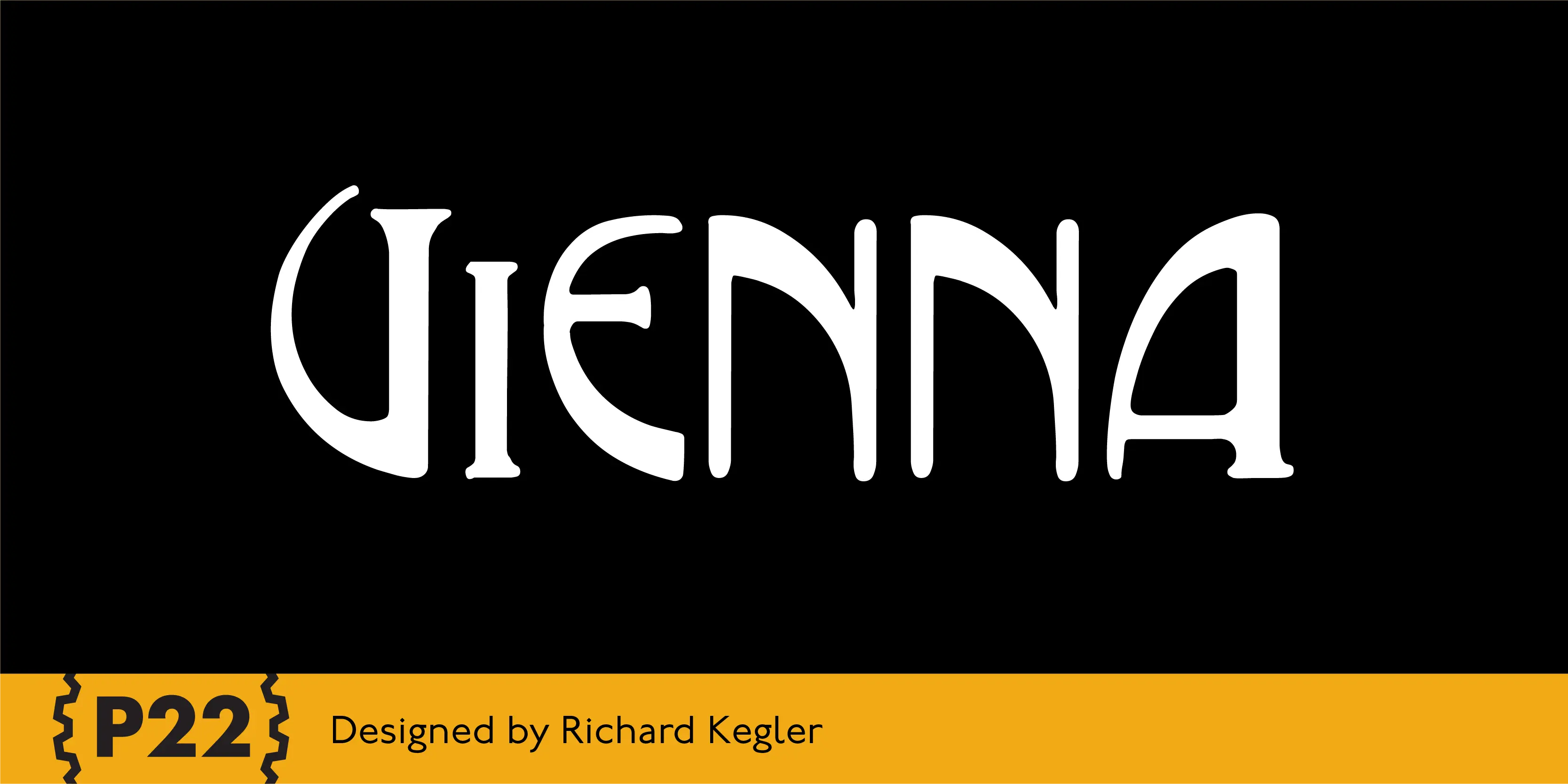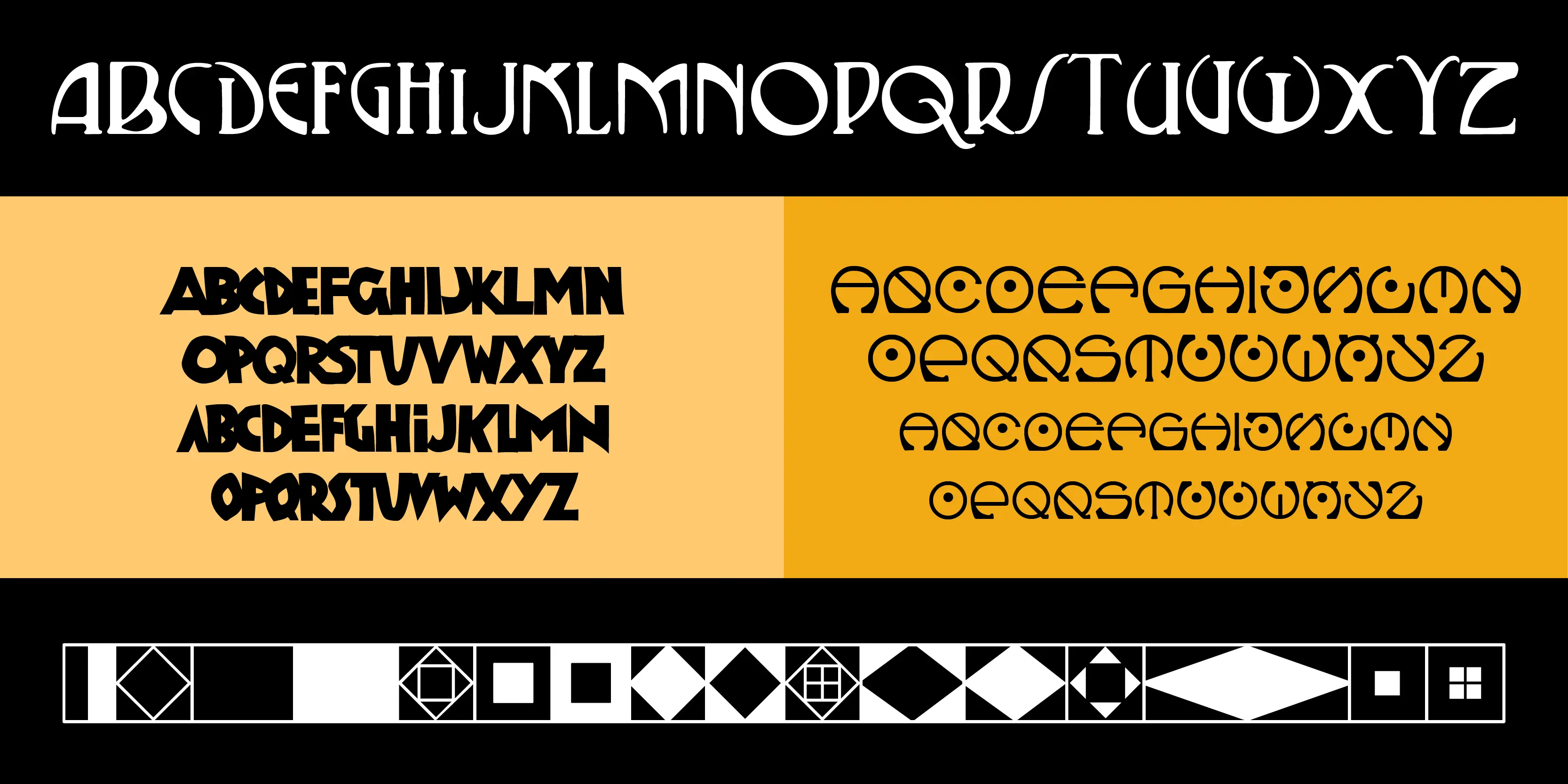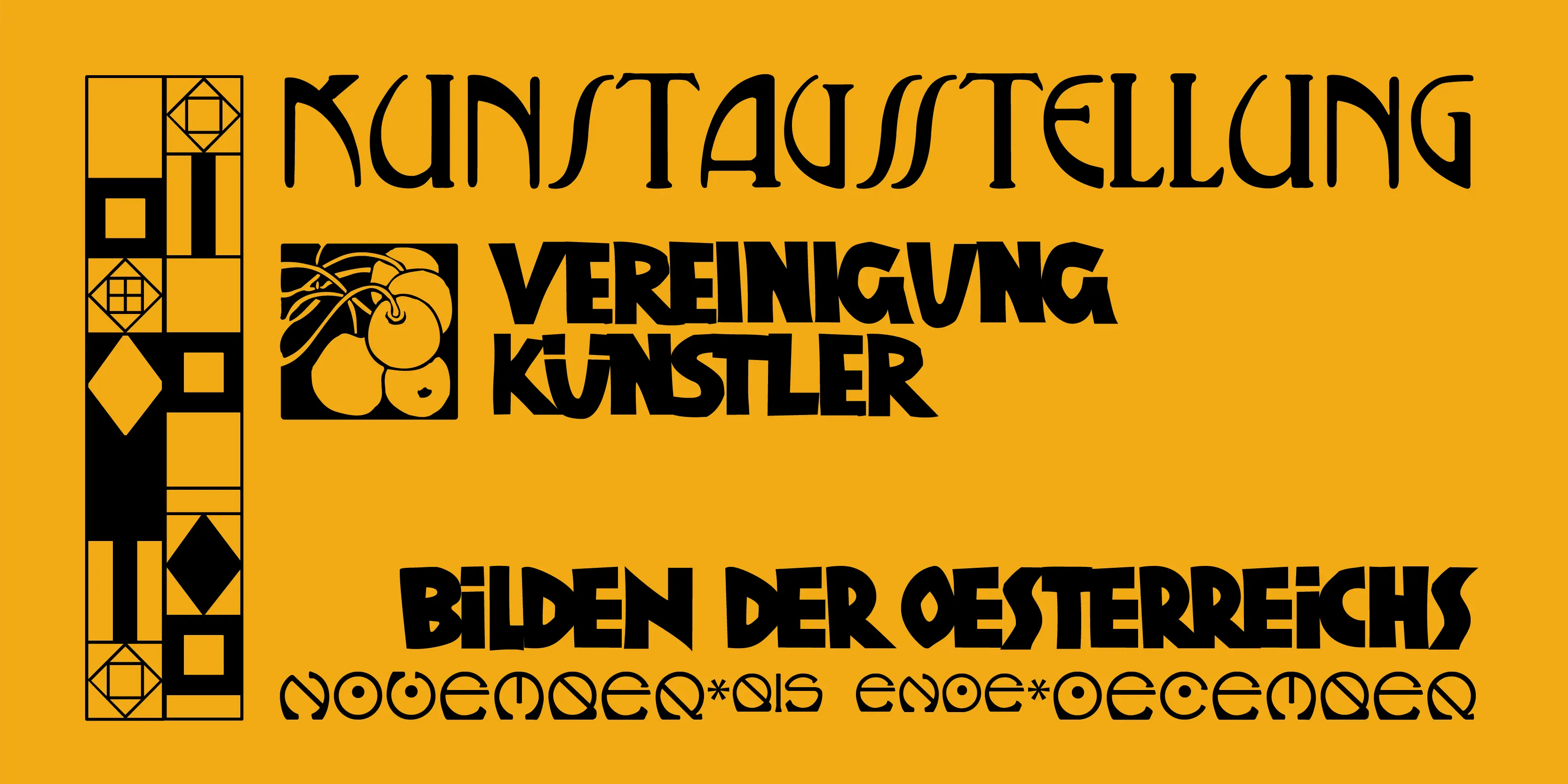
Vienna Font Family
Vienna
The Vienna Workshop (Wiener Werkstatte) produced a tremendous variety of art from the turn of the century until the beginning of World War II. This set, which includes three typefaces and a collection of graphic Extras, draws on both the Art Nouveau and Expressionist traditions of the Workshop.